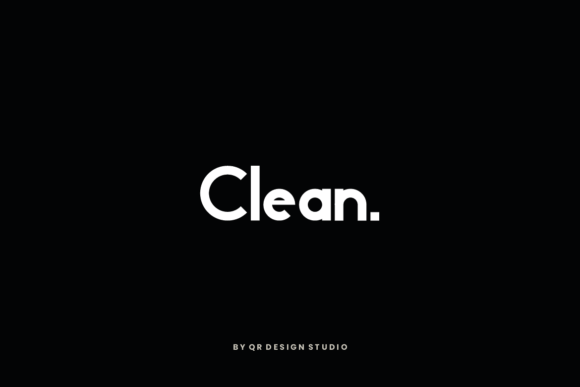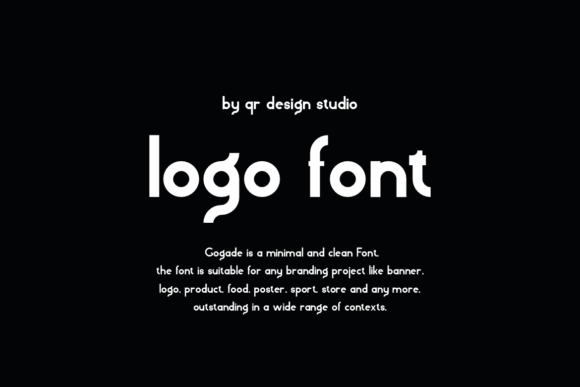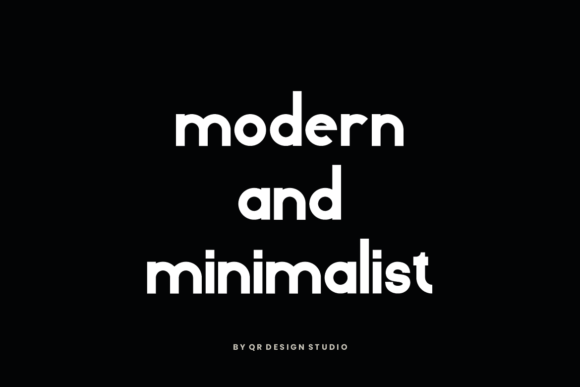
Introduction to Gogade Font
Gogade is a bold and assertive sans serif font.
Key Features of Gogade Font
Why Choose Gogade Font?
Gogade Font offers exceptional quality and versatility, making it a valuable addition to your design toolkit. Whether you’re creating for personal projects or commercial use, Gogade Font delivers professional results.